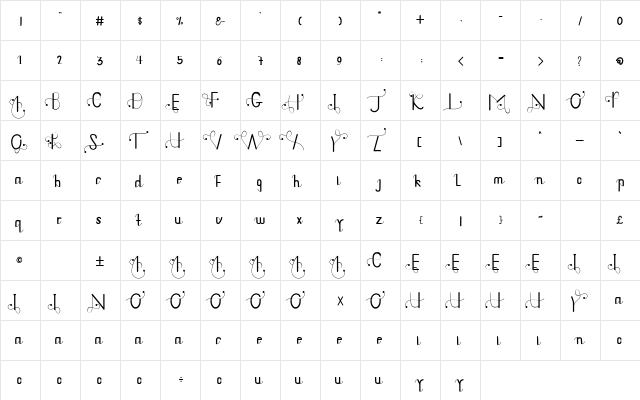
Doughnutz Regular
Design Context for Doughnutz Typeface
Doughnutz is a composed and adaptable typeface that performs quietly and consistently across a wide range of design contexts.